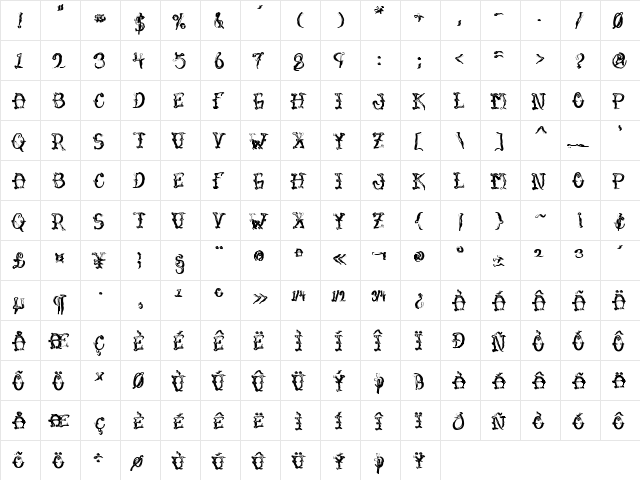
VTC-SumiSlasherOneSkinnedRaw Regular
| Foundry | WolfBainX- Larry E. Yerkes, Vigilante Typeface Corporation |
| Designer | WolfBainX-Larry E. Yerkes, Vigilante Typeface Corporation. |
Design Context for VTC-SumiSlasherOneSkinnedRaw Typeface
VTC-SumiSlasherOneSkinnedRaw is a composed and adaptable typeface that performs quietly and consistently across a wide range of design contexts.